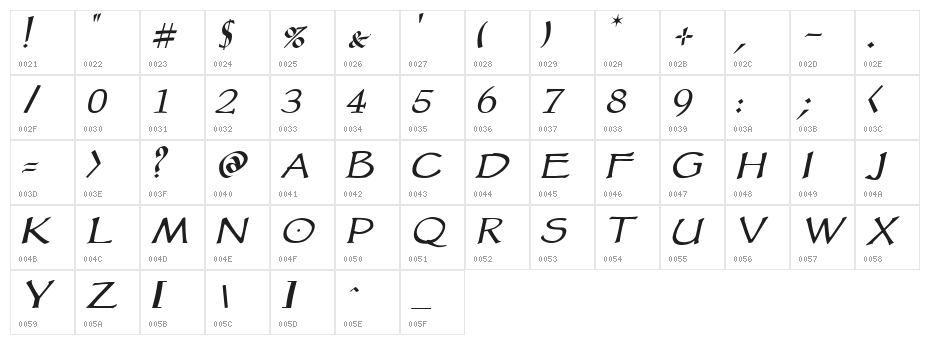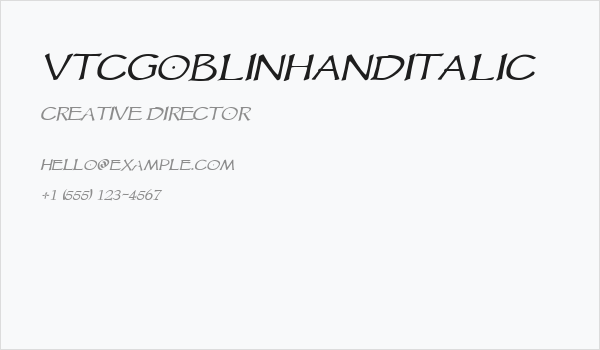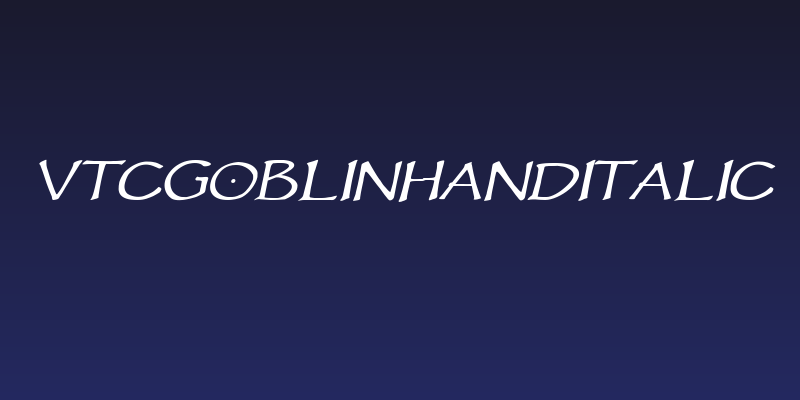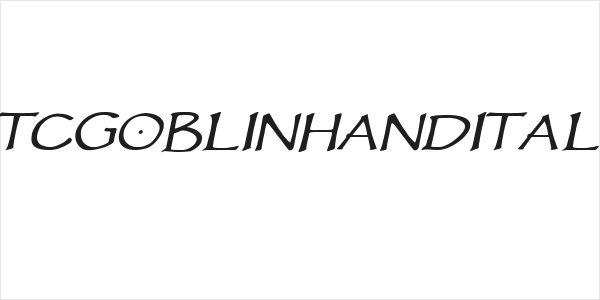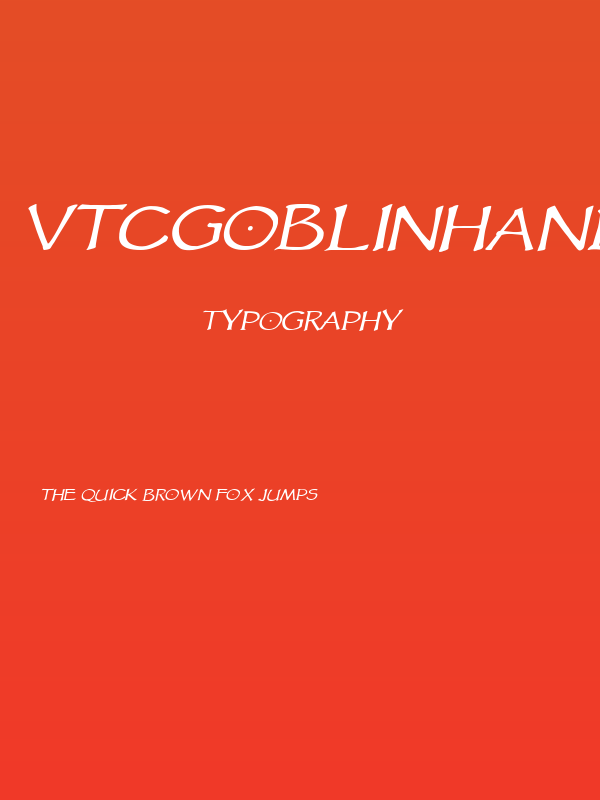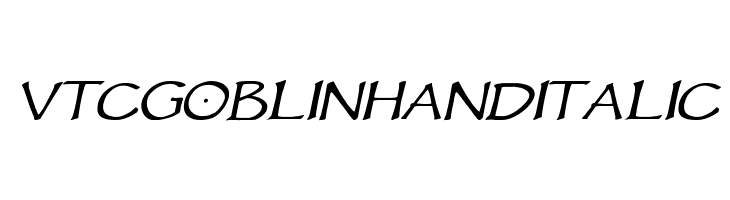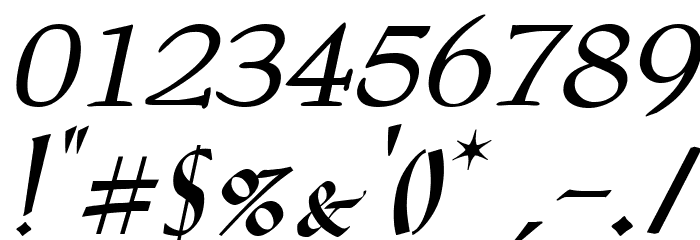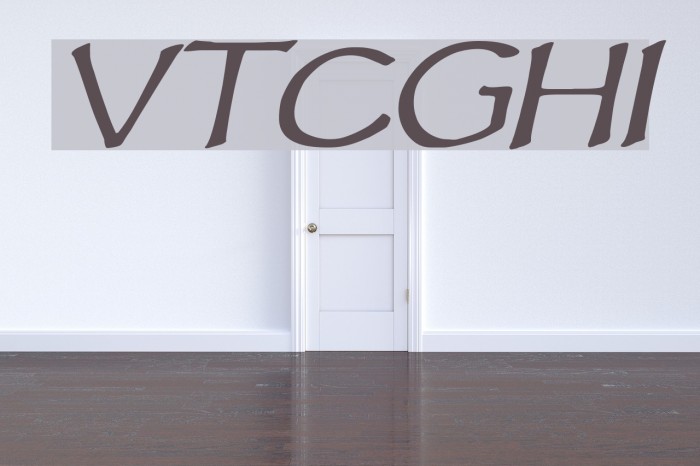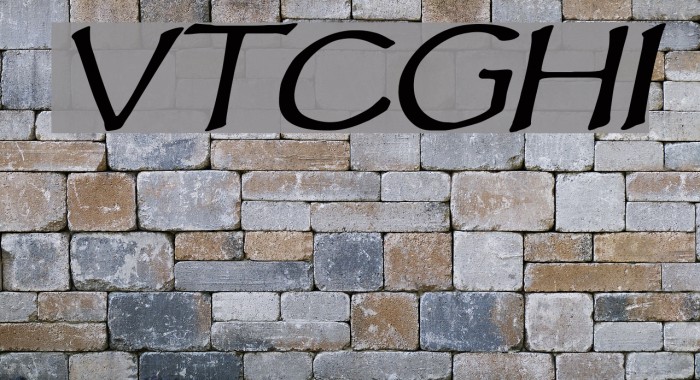
VTCGoblinHandItalic Font
VTCGoblinHandItalic Description
This font exhibits a dynamic and energetic style, characterized by its italicized and slightly slanted letterforms. The strokes are sharp and angular, giving it a bold and assertive appearance. The uppercase letters are particularly striking, with exaggerated serifs and a sense of motion. The lowercase letters maintain a consistent style, complementing the uppercase with their own unique flair. Numbers and special characters follow the same design principles, ensuring a cohesive look across all elements. The overall impression is one of movement and intensity, making it suitable for projects that require a strong visual impact.
| Proposed Projects | Ideal for use in posters, logos, and branding materials that require a strong, energetic presence. |